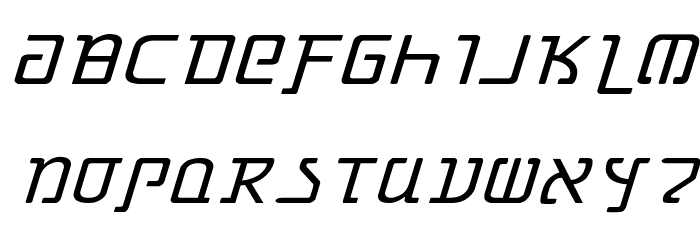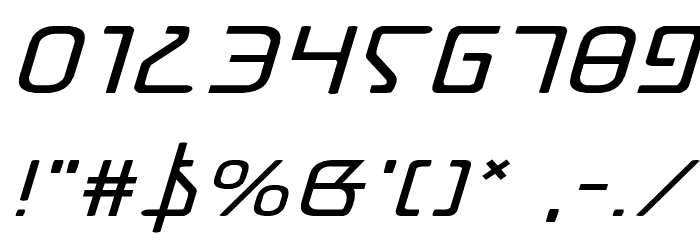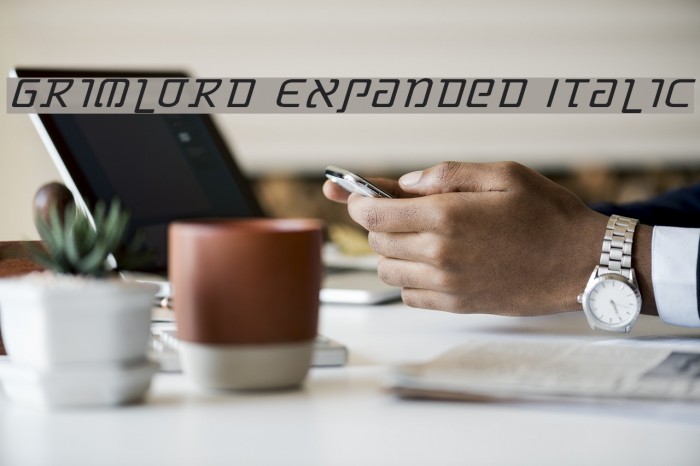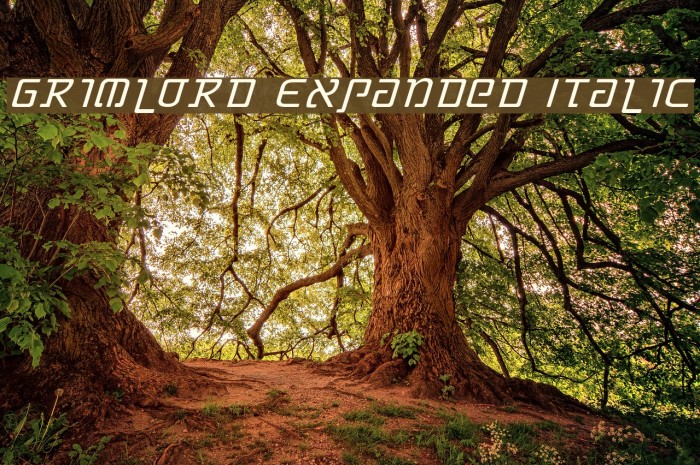
Grimlord Expanded Italic Font
This font features a futuristic and dynamic design with an expanded and italicized style. The characters are angular and sleek, giving a sense of motion and modernity. The uppercase and lowercase letters maintain a consistent slant, enhancing the italic effect. The numerals are bold and distinct, with unique geometric shapes that complement the overall aesthetic. Special characters are well-integrated, maintaining the font's cohesive look. The font's design is suitable for projects that require a bold and modern appearance.
A futuristic, expanded italic font with angular and sleek characters.
- Proposed Projects: Ideal for sci-fi themed designs, technology branding, video game titles, and modern advertising.